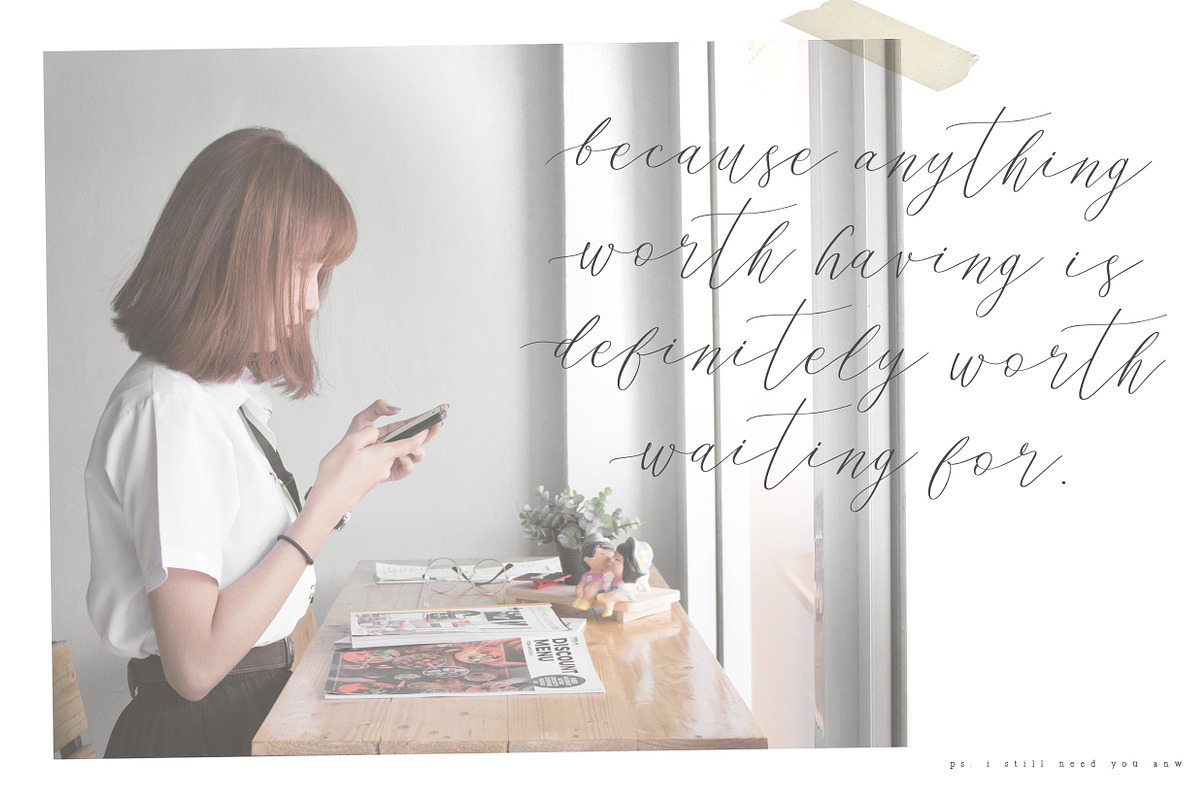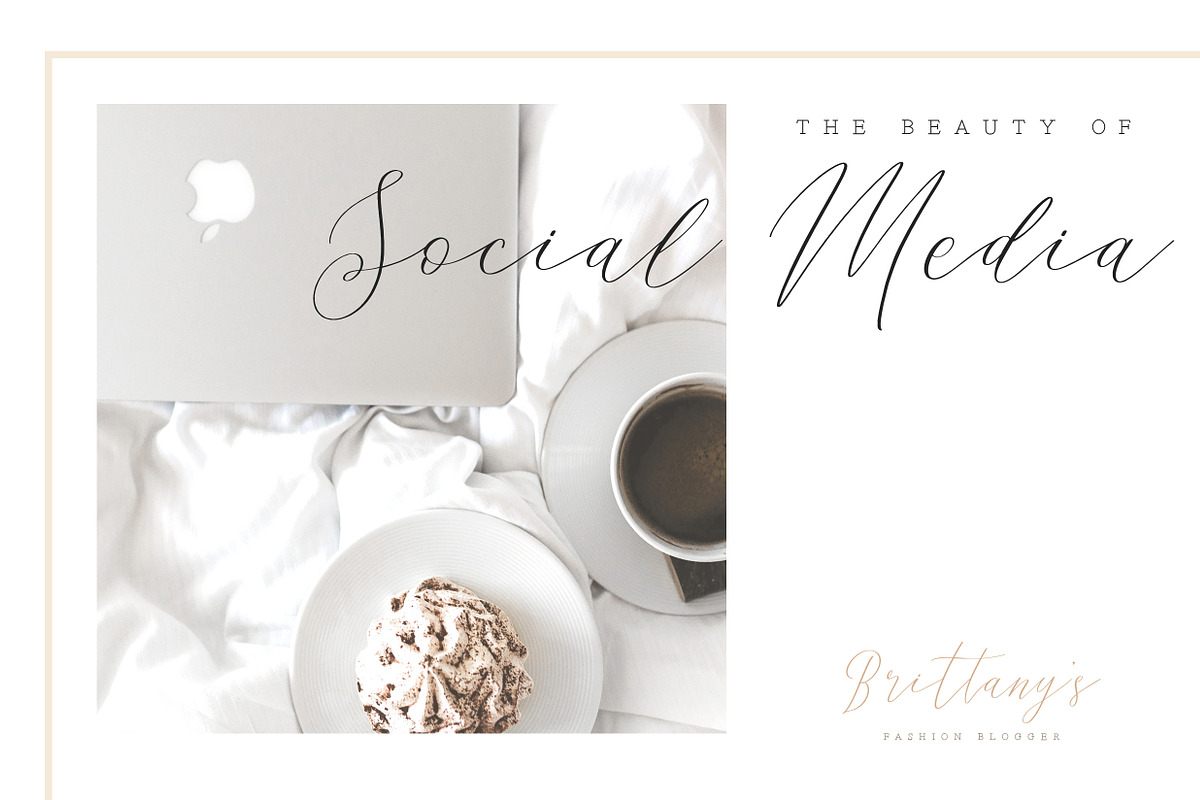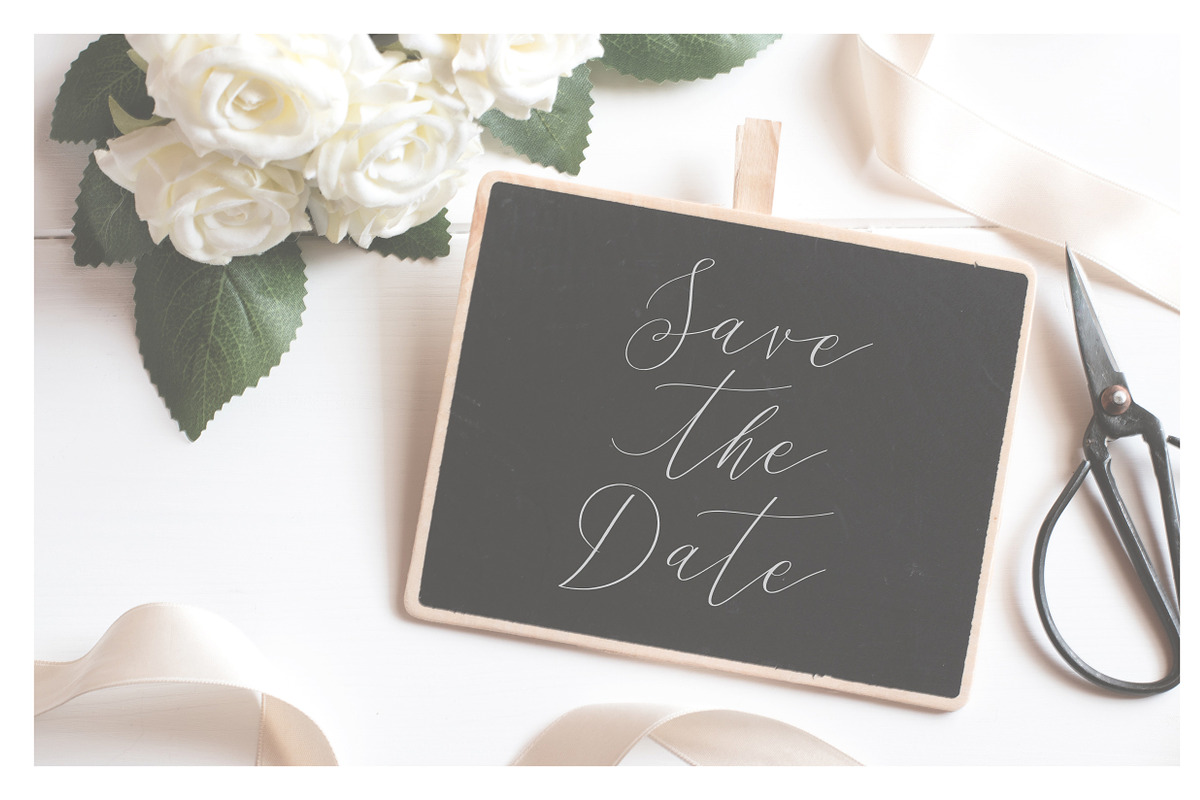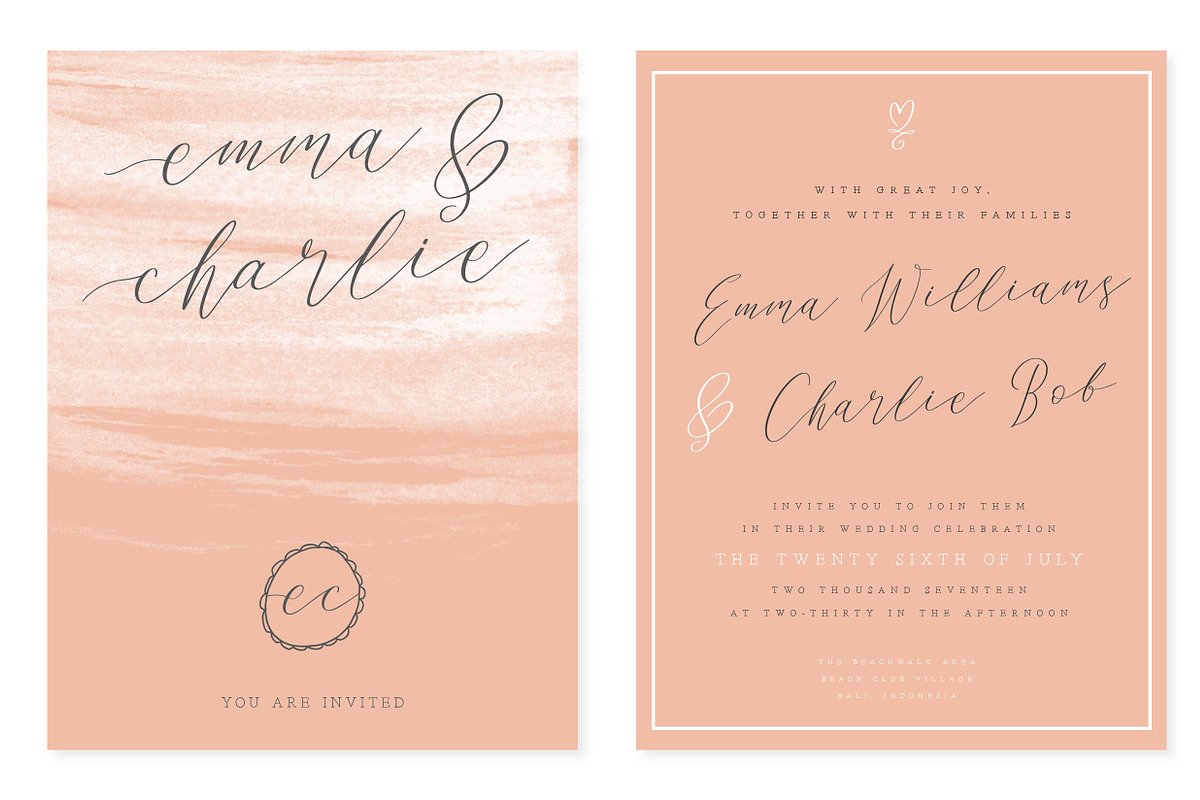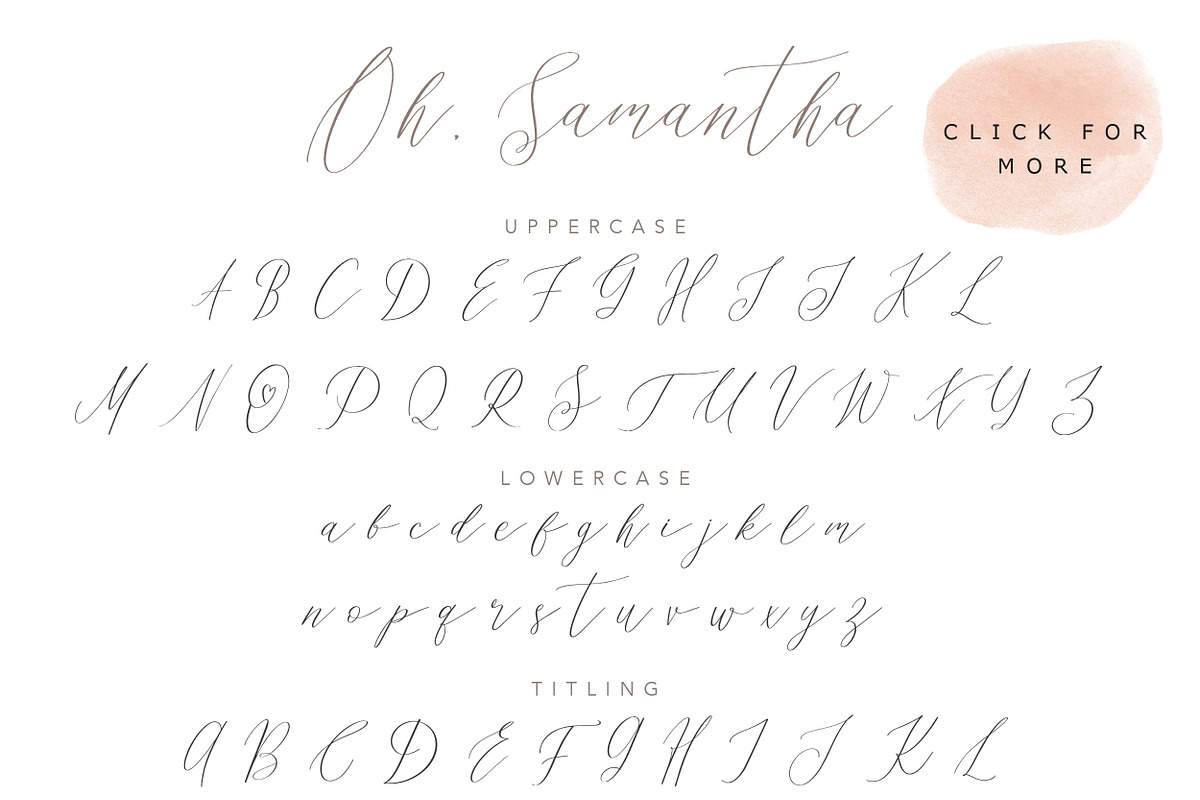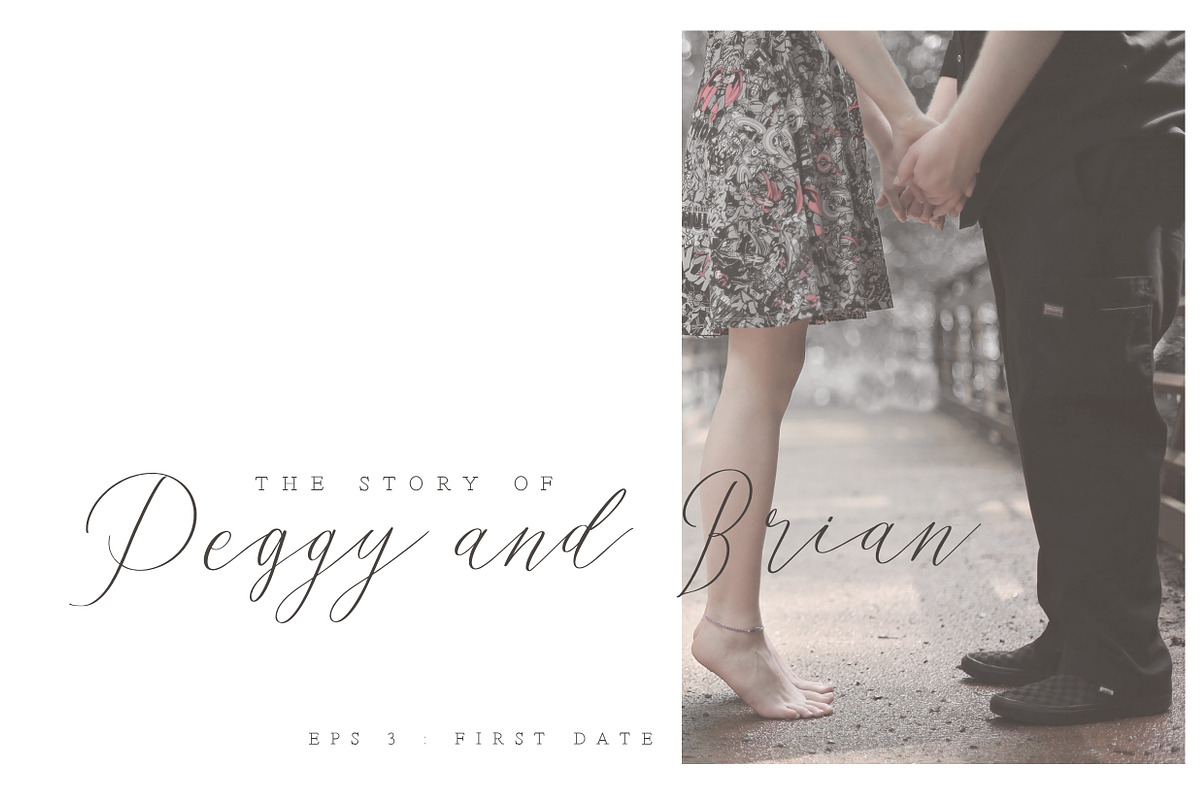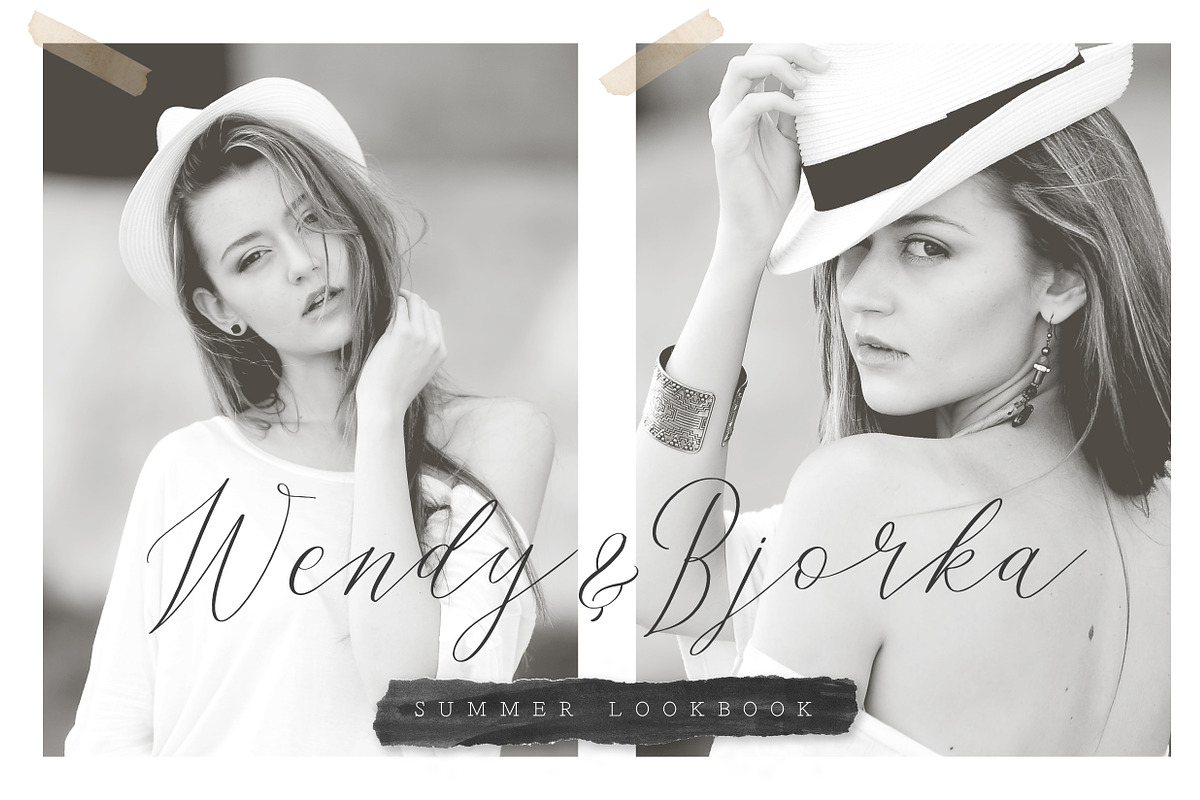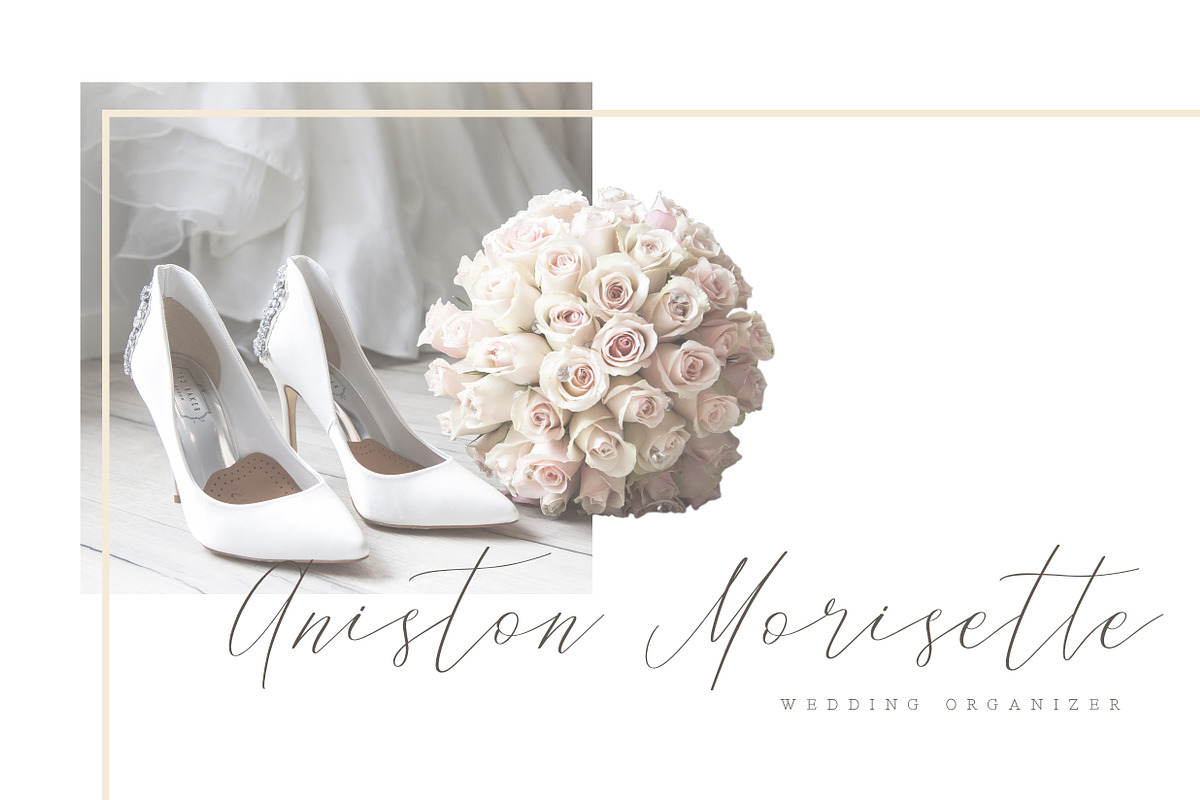
Oh Samantha - Seductive Chic Font
Oh, Samantha. A beautiful modern calligraphy font with seductive, feminine, and contemporary writing style. It would be a perfect mate for branding, logo, wedding things, greeting cards, fashion, and all those sweetest things on earth.
Included Uppercase, Lowercase, Numbers & Punctuations, Multilanguage Support, and a bunch of alternative letters of Uppercase and Lowercase. Not only that, there are Lowercase with beginning swash just in case you want it all-lowercase text. And ligatures for double-letters to seamlessly make it looks like handwritten.
- Oh, Samantha Extras A bunch of swashes and doodle illustration to give you the casual feels on every single design you make with. And the good thing is its a font, so you just type it out then the illustration pops out right away.
- Sintix font. Here's one of our latest release, and just because you're precious, we give you this special treat with including this font on it, to be the perfect pair for Oh, Samantha font.